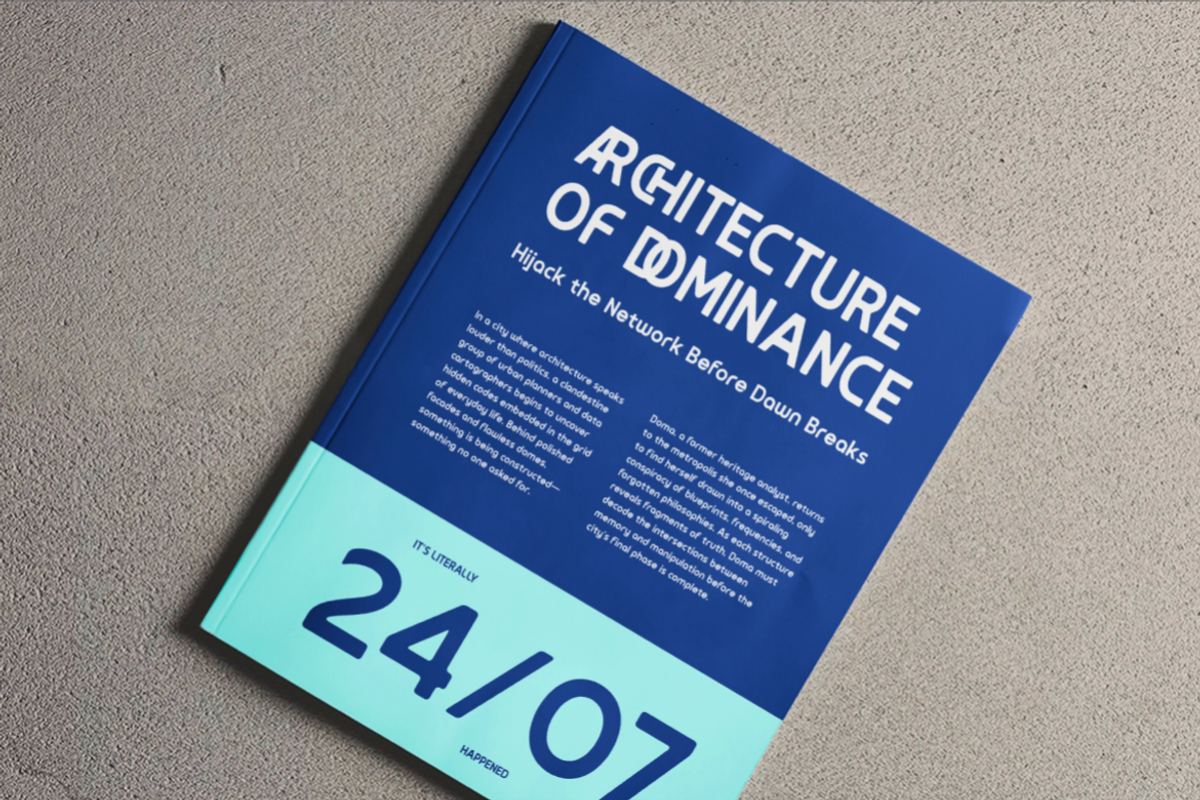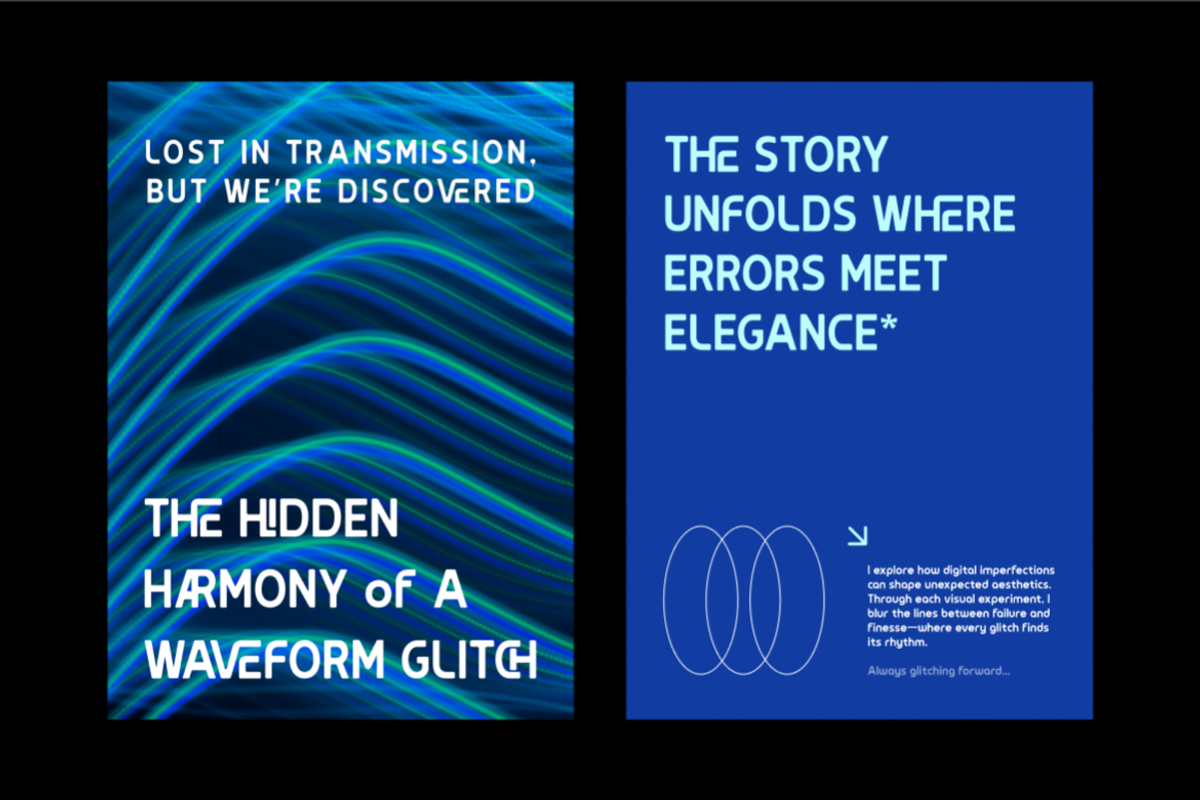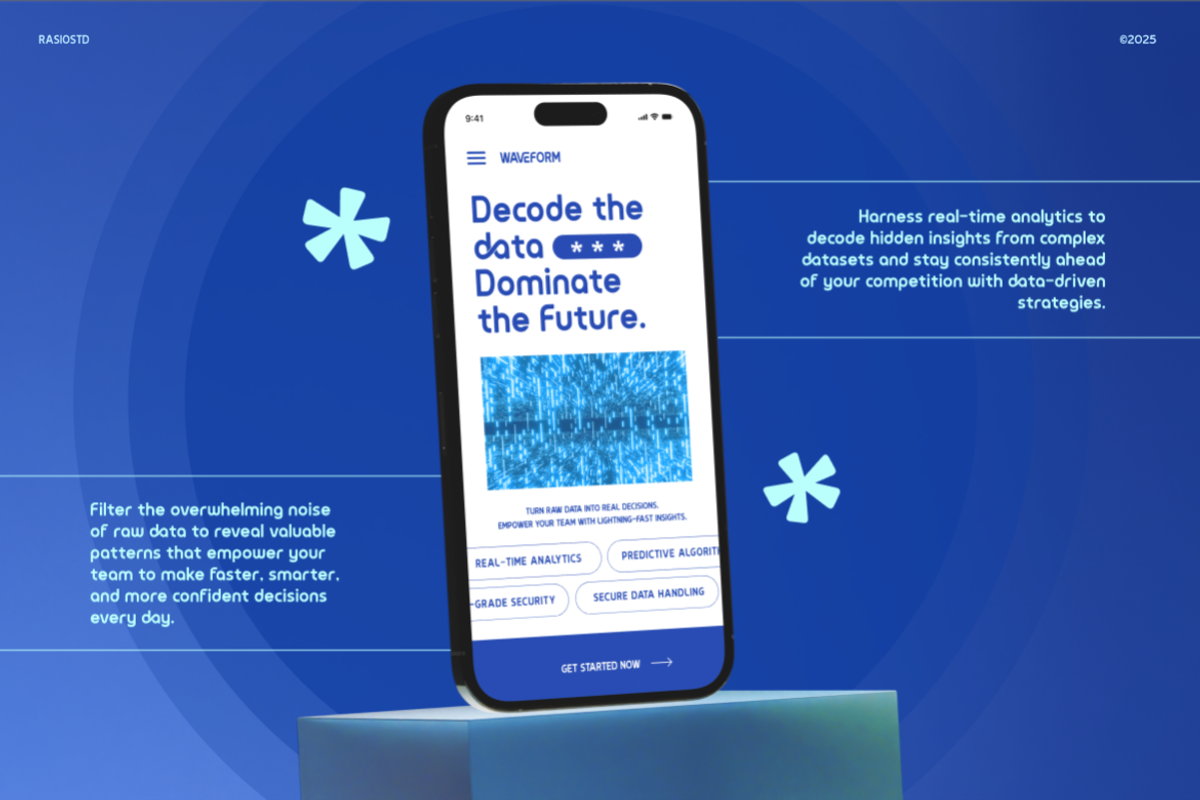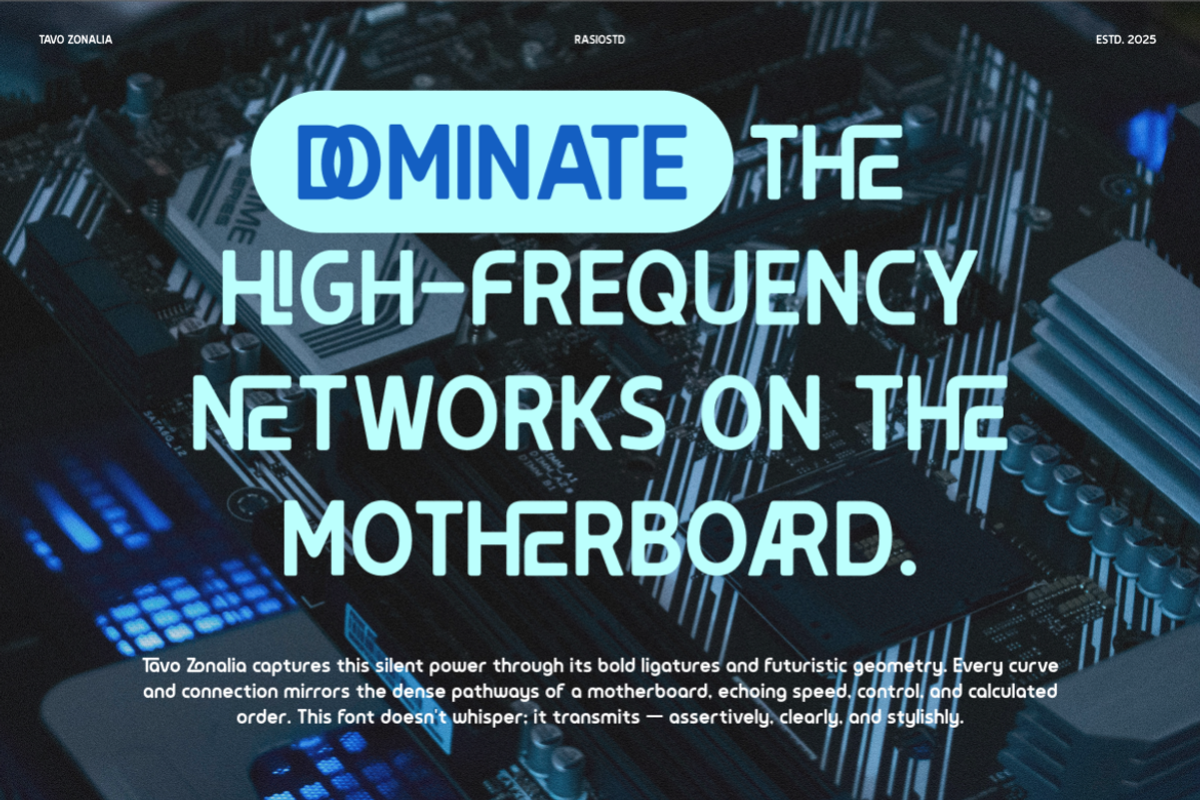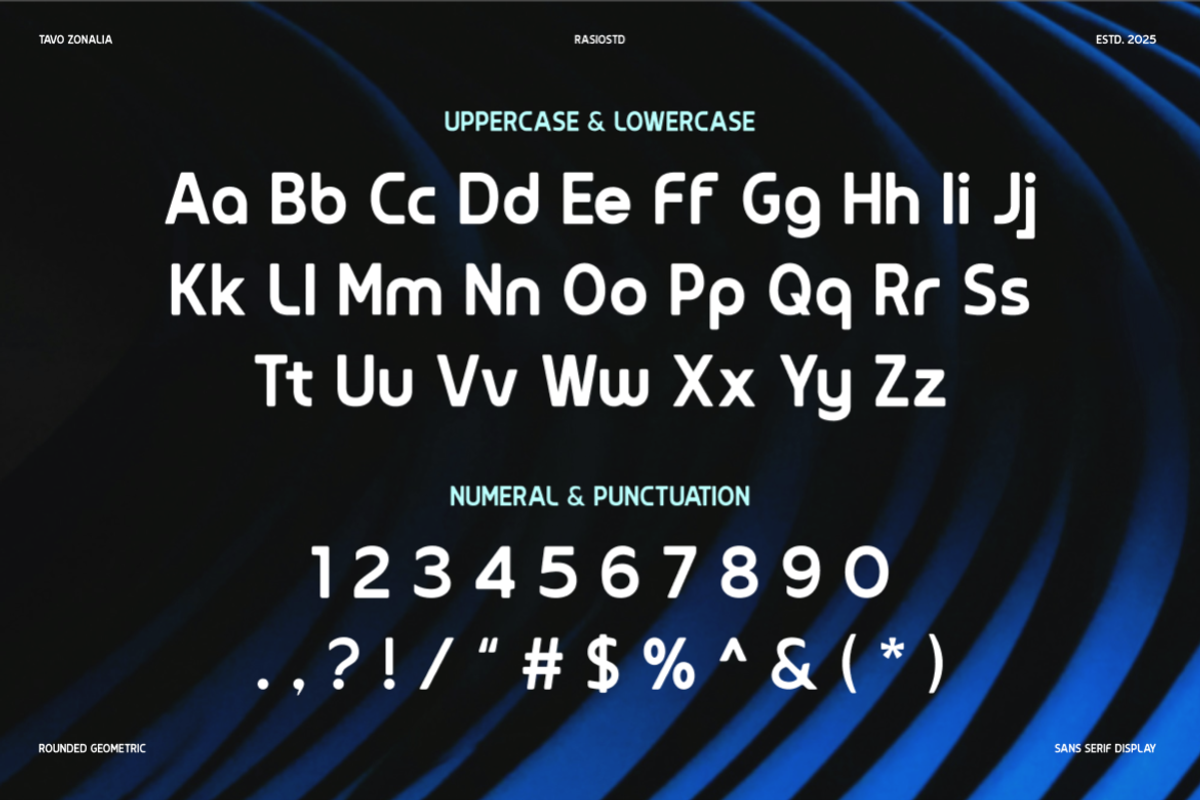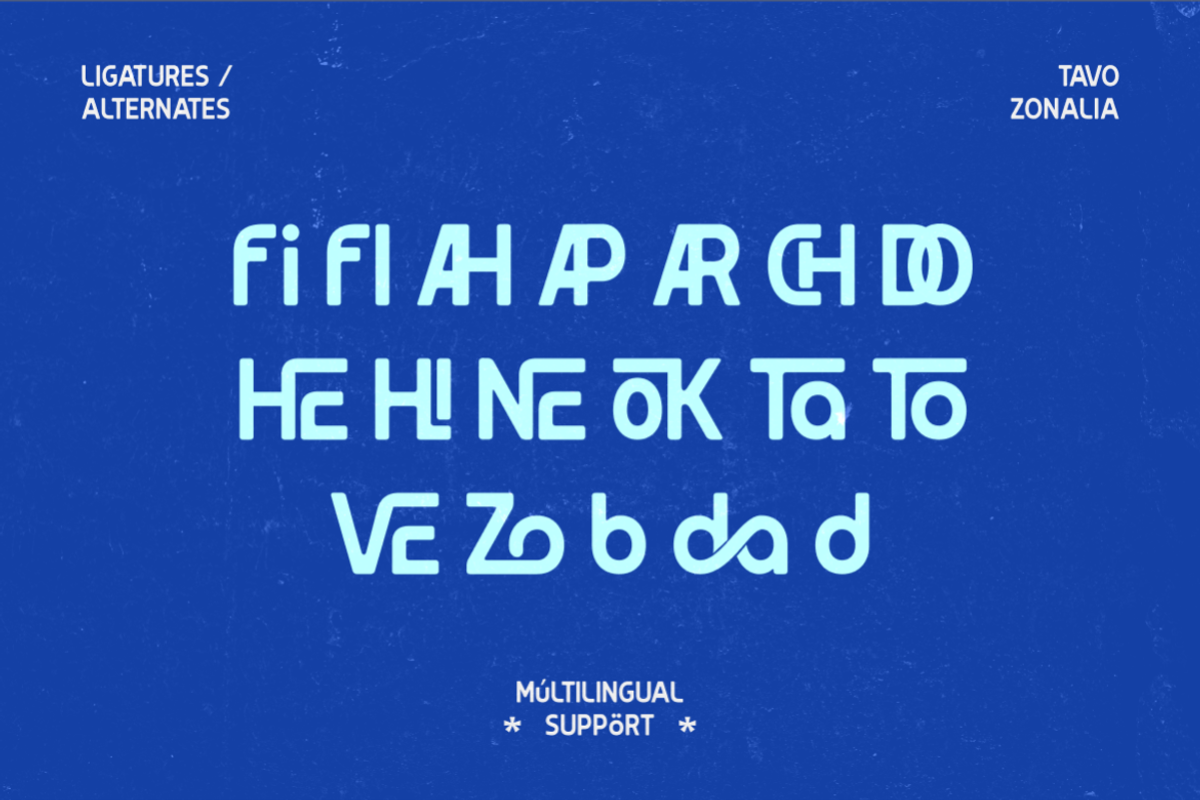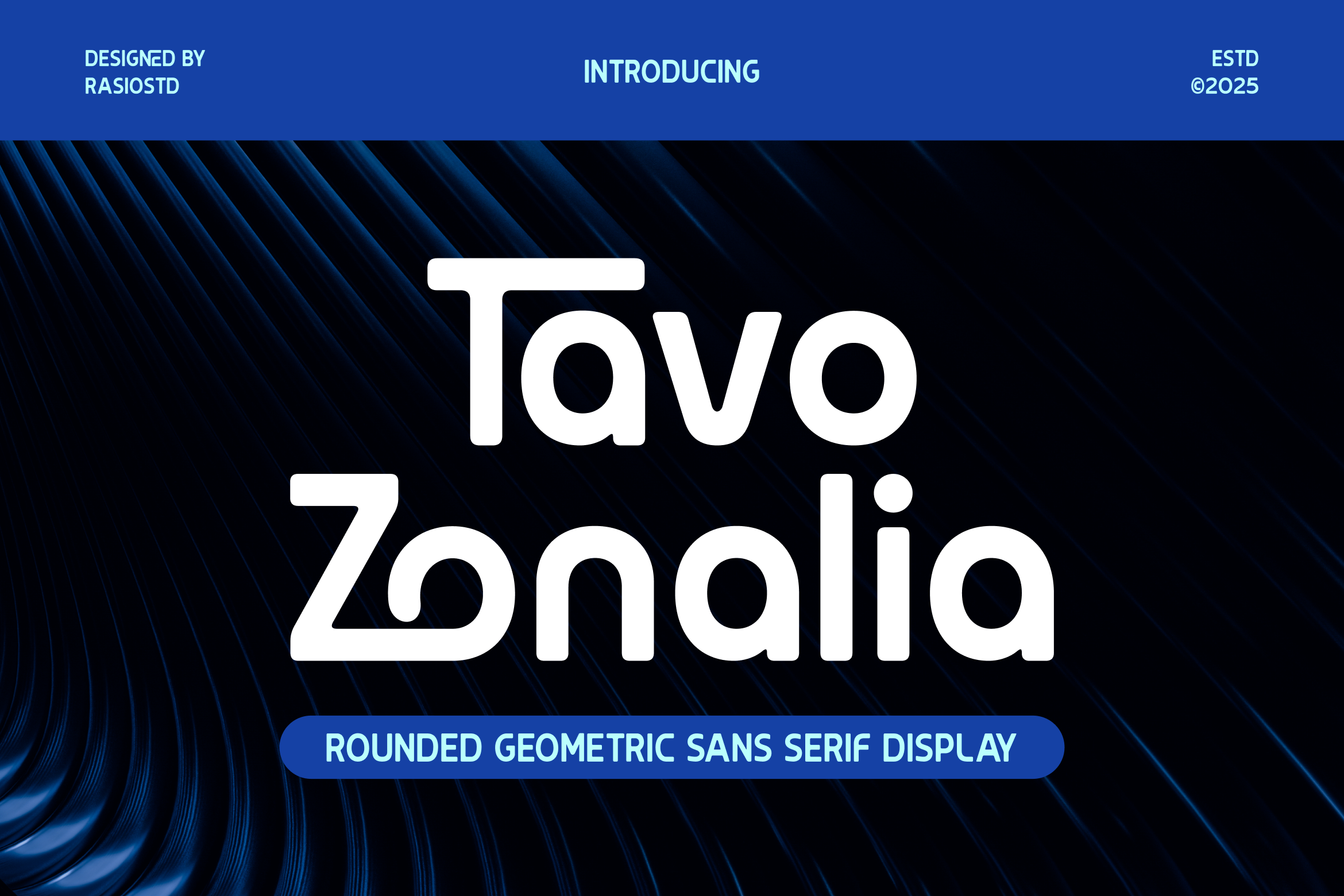
Tavo Zonalia Rounded Sans Serif Font
Tavo Zonalia is a rounded geometric sans serif display font built with smooth curves, balanced proportions, and a clean modern structure. It blends soft terminals with bold letterforms to create a friendly yet professional tone, making every headline feel confident and approachable. Delivered in high-quality font files and ready for branding, UI, editorial, and contemporary visual systems.
Relevance and Use Cases is perfect for brand identity systems, tech startups, UI/UX interfaces, mobile apps, editorial layouts, posters, packaging, social media graphics, digital campaigns, and modern marketing visuals that require a clean, friendly, and confident typographic presence. The typeface includes uppercase, lowercase, numerals, and punctuation with consistent spacing for sharp readability across digital and print layouts.
- Rounded geometric construction with balanced proportions for a modern
- Soft terminals and smooth curves that enhance clarity and friendly character
- Clean sans serif structure with minimal contrast for consistent visual stability
- Even stroke weight and vertical rhythm for sharp, professional presentation
- Optimized spacing and kerning for strong readability in both headlines
- Brand identity systems that need a modern, calm, and professional presence
- UI/UX interfaces for tech products, dashboards, and mobile applications
- Editorial layouts, magazines, and minimalist book design
- Product packaging, labels, and merchandise with clean contemporary aesthetics
- Social media templates, presentations, and digital marketing visuals with polished clarity